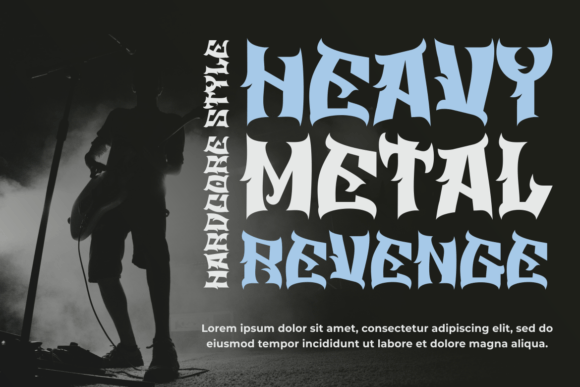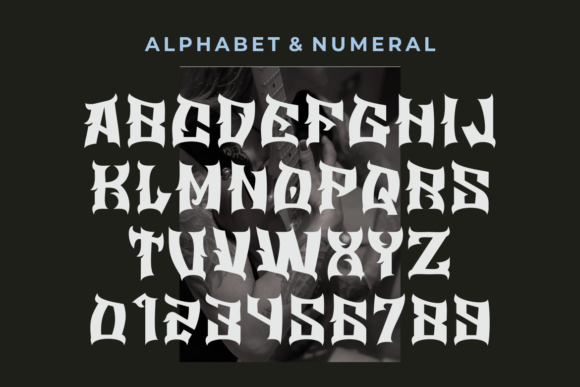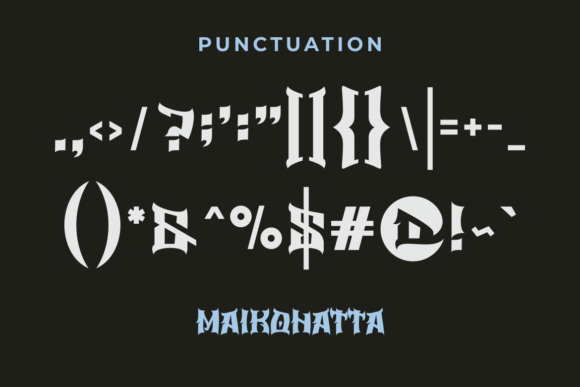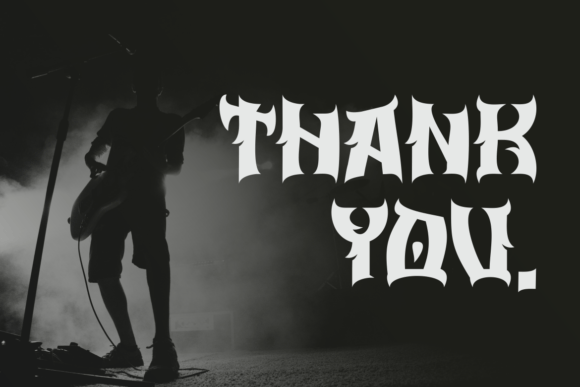
**DARUMA FONT**: Unleash the Power of Modern Blackletter Typography
In the realm of typography, few fonts evoke the same level of intrigue and edginess as the **DARUMA FONT**. This modern blackletter font is a masterpiece of design, boasting a unique blend of intricate details and horror metal aesthetics. Whether you’re a designer, craftsperson, or simply a typography enthusiast, **DARUMA FONT** is sure to captivate your imagination and inspire your creative endeavors.
The Distinctive Character of **DARUMA FONT**
At first glance, **DARUMA FONT** may appear to be a traditional blackletter font, but upon closer inspection, its distinctive character and intricate details become apparent. Each letter is carefully crafted to exude a sense of mystery and intensity, making it perfect for designs that require a touch of darkness and sophistication. The font’s horror metal aesthetic adds an extra layer of edginess, setting it apart from more conventional typography options.
Design Applications for **DARUMA FONT**
The versatility of **DARUMA FONT** makes it an excellent choice for a wide range of design applications. Here are a few ideas to get you started:
• Retro-Urban Designs**: Add a touch of nostalgia and grit to your designs with **DARUMA FONT**. Its unique blend of vintage and modern elements makes it perfect for creating eye-catching posters, flyers, and brochures.
• Tattoo Business Branding**: Take your tattoo business to the next level with **DARUMA FONT**. Its bold, edgy aesthetic is sure to appeal to tattoo enthusiasts and artists alike.
• Logos and Branding**: Create a lasting impression with **DARUMA FONT**. Its distinctive character and horror metal aesthetic make it an excellent choice for logos, business cards, and other branding materials.
• Vintage Designs**: Add a touch of elegance and sophistication to your vintage designs with **DARUMA FONT**. Its intricate details and classic blackletter style make it perfect for creating stunning posters, invitations, and other decorative materials.
Why Choose **DARUMA FONT**?
With so many fonts available, why choose **DARUMA FONT**? Here are just a few reasons why this modern blackletter font stands out from the crowd:
• Unique Aesthetic**: **DARUMA FONT** boasts a distinctive horror metal aesthetic that sets it apart from more conventional typography options.
• Highly Detailed**: Each letter is carefully crafted with intricate details, making **DARUMA FONT** perfect for designs that require a high level of sophistication.
• Versatile**: **DARUMA FONT** is suitable for a wide range of design applications, from retro-urban designs to tattoo business branding.
Tips for Using **DARUMA FONT**
To get the most out of **DARUMA FONT**, here are a few tips to keep in mind:
• Use it Sparingly**: Due to its bold, edgy aesthetic, **DARUMA FONT** is best used sparingly. Use it to create a focal point in your design, and balance it with more conventional typography options.
• Experiment with Colors**: **DARUMA FONT** looks stunning in bold, metallic colors. Experiment with different colors and textures to add depth and interest to your design.
• Pair it with Contrasting Fonts**: **DARUMA FONT** pairs well with contrasting fonts that have a more minimalist or elegant aesthetic. Experiment with different font combinations to create a unique and eye-catching design.
Author maikofarazhatta
In conclusion, **DARUMA FONT** is a modern blackletter font that is sure to captivate designers, craftspersons, and typography enthusiasts alike. Its unique blend of intricate details and horror metal aesthetics makes it perfect for a wide range of design applications, from retro-urban designs to tattoo business branding. With its versatility, distinctive character, and highly detailed design, **DARUMA FONT** is an excellent choice for anyone looking to add a touch of edginess and sophistication to their designs.